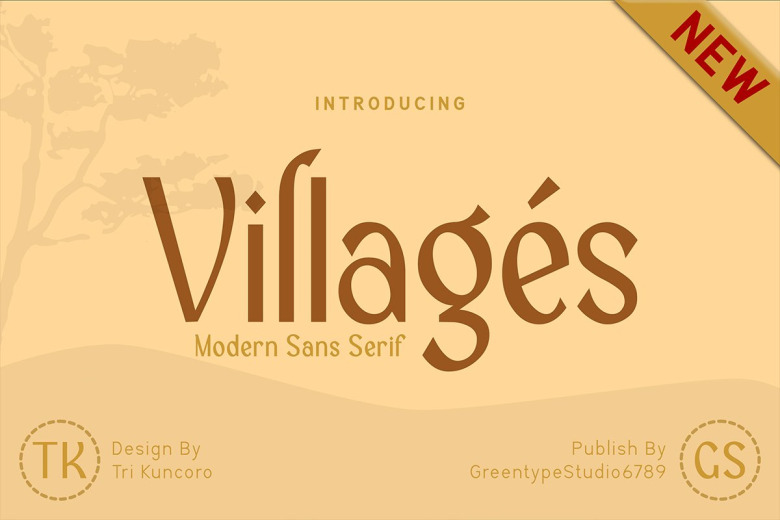
Villages Font
Introducing the new Villages Sans Serif Font is an elegant and modern sans serif font. Use this font for any crafting project that requires a personalized look! This font is PUA encoded which means you can access all of the glyphs and swashes with ease!